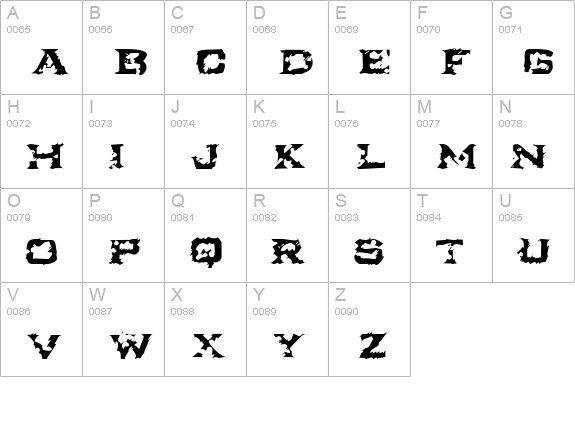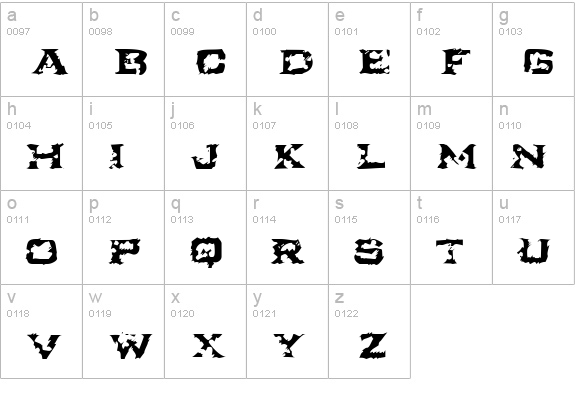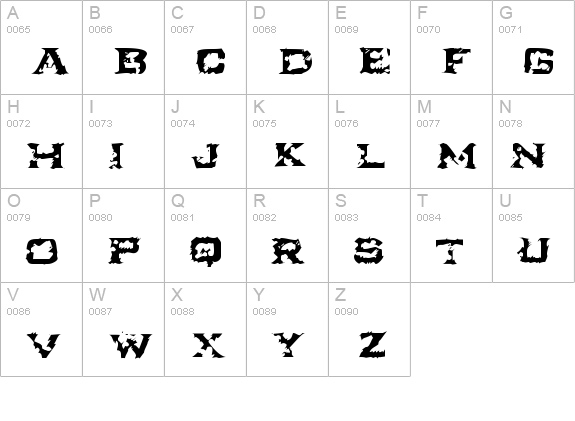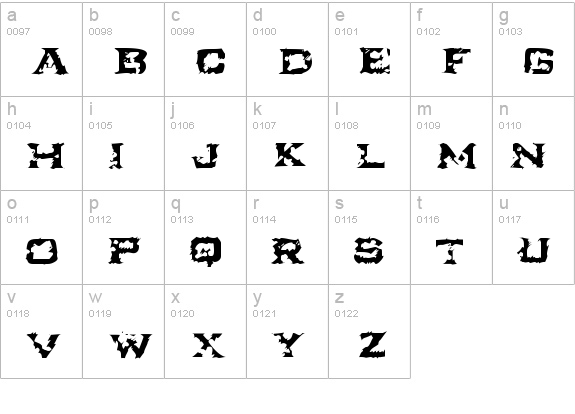
Ikarus Turbulence Font Details
Introducing Ikarus Turbulence, a captivating and dynamic font that will take your designs to new heights. This remarkable typeface combines boldness with elegance, making it the perfect choice for projects that require a touch of both strength and sophistication. With its unique and eye-catching letterforms, Ikarus Turbulence effortlessly commands attention, drawing the viewer in with its striking presence. Each character is meticulously crafted, showcasing intricate details and fluid curves that exude a sense of energy and movement. Whether you're designing a poster, logo, or website, Ikarus Turbulence lends a powerful and modern aesthetic that effortlessly elevates your work. Its versatility allows it to be used in various contexts, from corporate branding to creative advertising, ensuring that your message is delivered with impact. One of the most exciting aspects of Ikarus Turbulence is that it is free to download at FontsMarket.com. This means that you can access this extraordinary font without any cost, making it accessible to designers of all levels. Its availability ensures that creativity knows no bounds, enabling you to explore endless possibilities and push the boundaries of your designs. So, why wait? Embrace the power and beauty of Ikarus Turbulence and unleash your creativity like never before. Download this remarkable font today at FontsMarket.com and embark on a journey of design excellence.